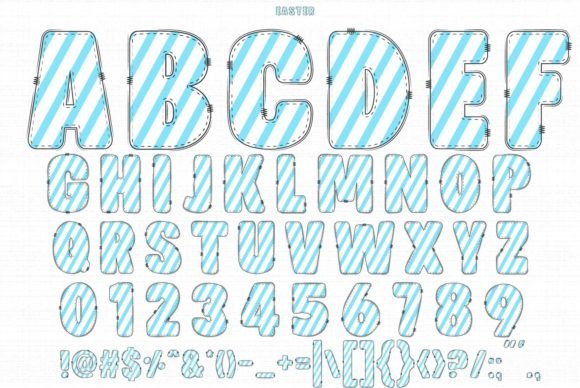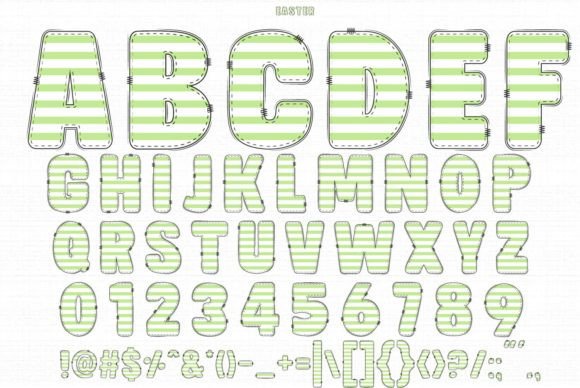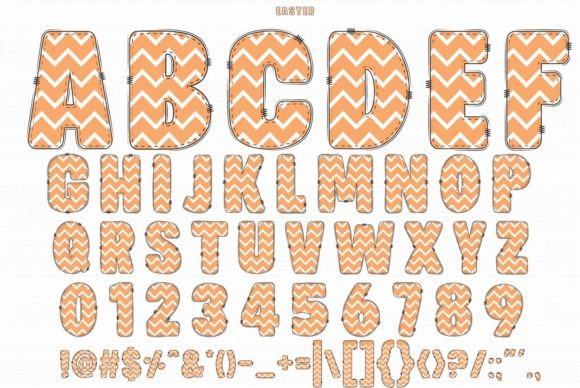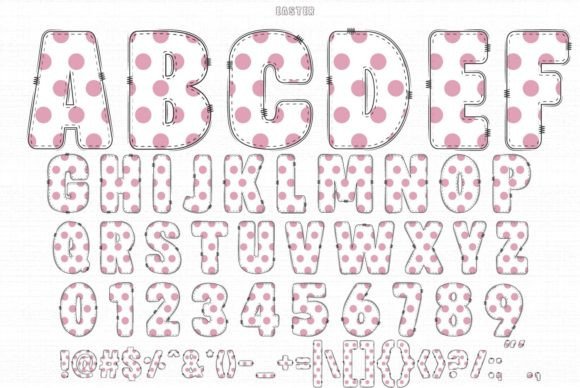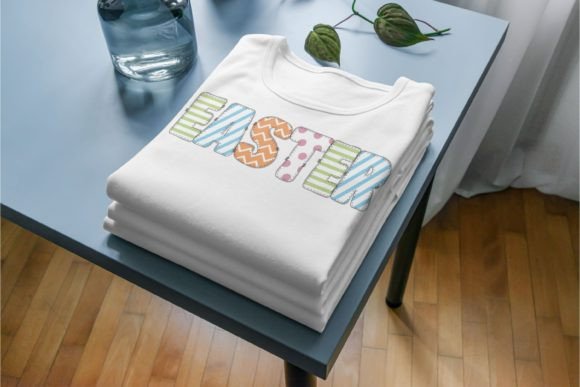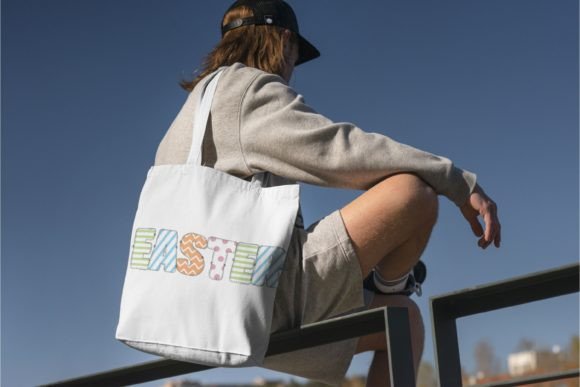
Easter Font: Add a Touch of Whimsy to Your Easter Creations
Easter is just around the corner, and what better way to celebrate than with a sweet, chic, and bubbly Easter font? This delightful font is perfect for adding a touch of whimsy to your Easter creations, from DIY crafts to digital designs. In this article, we’ll explore the features of the Easter font, its compatibility with various design programs, and provide tips on how to make the most of this charming font.
About the Easter Font
The Easter font is a beautiful, colorful font that’s sure to bring your Easter creations to life. Its sweet and bubbly design makes it perfect for a variety of projects, from Easter cards and invitations to DIY crafts and decorations. The font comes in two versions: a black version and a color version. The black version is compatible with Cricut Design Space and other cutting machines, making it ideal for crafters who love to work with vinyl, iron-on, and other materials.
- Experiment with colors: The Easter font comes in a range of bright, pastel colors that are perfect for Easter. Try experimenting with different color combinations to create unique and eye-catching designs.
- Pair with complementary fonts: For added visual interest, try pairing the Easter font with complementary fonts. A simple sans-serif font can provide a nice contrast to the playful Easter font.
- Use in digital designs: The Easter font is perfect for digital designs, from social media graphics to blog posts. Use it to add a touch of whimsy to your online content.
Project Ideas for the Easter Font
The Easter font is perfect for a variety of projects, including:
- Easter cards and invitations: Use the Easter font to create custom Easter cards and invitations that are sure to delight.
- DIY crafts: The Easter font is perfect for DIY crafts, from paper crafts to vinyl decals.
- Digital designs: Use the Easter font to add a touch of whimsy to your digital designs, from social media graphics to blog posts.
- Easter decorations: Create custom Easter decorations, such as banners and garlands, using the Easter font.
The Easter font is a sweet, chic, and bubbly font that’s perfect for adding a touch of whimsy to your Easter creations. With its compatibility with various design programs and cutting machines, you can use it to create a wide range of projects, from DIY crafts to digital designs. Whether you’re a crafter, designer, or simply someone who loves Easter, this font is sure to bring a smile to your face. So why not give it a try and see what amazing creations you can come up with?